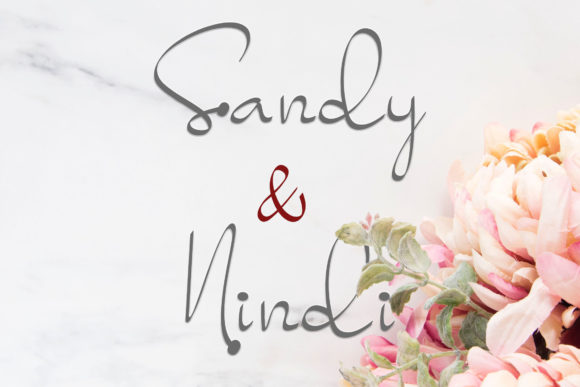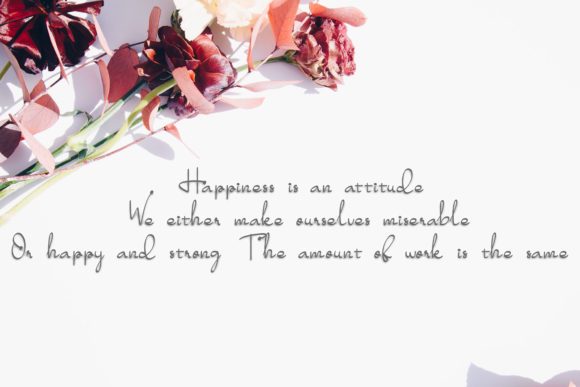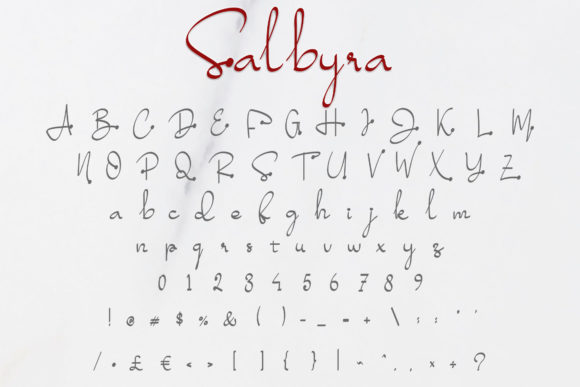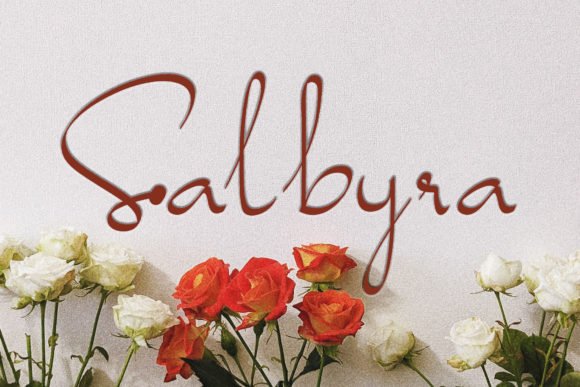
Introduction to Salbyra Font
Salbyra is a well-balanced and delicate script font that exudes elegance and class.
This font was particularly crafted for those who need a beautiful and refreshing look to their designs .
Salbyra Font offers exceptional quality and versatility, making it a valuable addition to your design toolkit. Whether you’re creating for personal projects or commercial use, Salbyra Font delivers professional results.